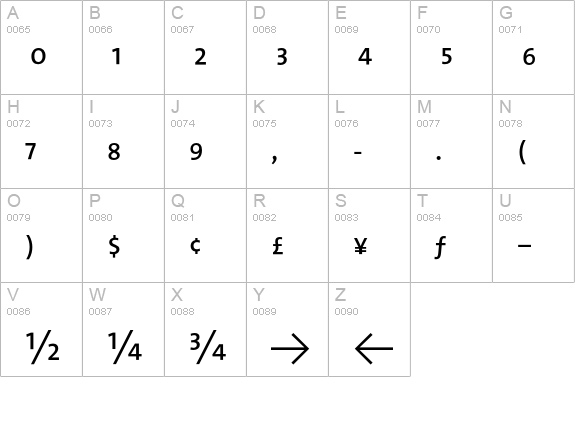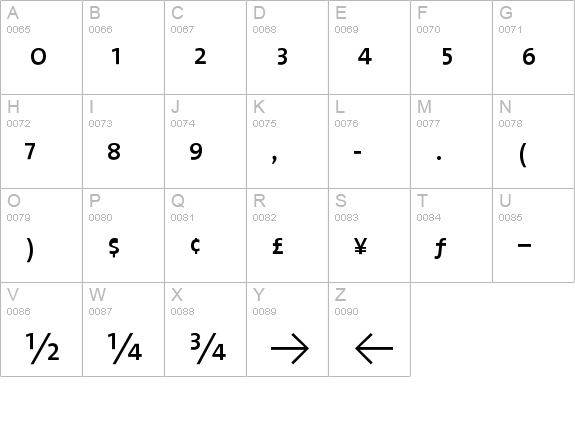
TheSans SemiLight Expert Font Details
TheSans SemiLight Expert font is a versatile and elegant typeface that effortlessly combines modern simplicity with timeless sophistication. Its semi-light weight creates a delicate and refined aesthetic, making it perfect for a wide range of design projects. This font offers a harmonious balance between legibility and visual appeal, making it ideal for both display purposes and body text. Its clean and well-proportioned letterforms ensure excellent readability across various sizes and resolutions. What sets TheSans SemiLight Expert font apart is its extensive character set, which includes a wide range of expert features. These features provide enhanced typographic versatility, allowing designers to create professional and polished designs with ease. And the best part? TheSans SemiLight Expert font is available for free download at FontsMarket.com. It is an excellent opportunity to add this exceptional typeface to your font library without any cost. With its seamless integration into your design software, you can start exploring and experimenting with its versatile features right away. Whether you are working on branding materials, editorial layouts, web design, or any other creative project, TheSans SemiLight Expert font will elevate your work to new heights. Its clean, elegant, and modern aesthetic will captivate your audience, leaving a lasting impression. Embrace the versatility and beauty of TheSans SemiLight Expert font today by downloading it for free at FontsMarket.com. Expand your creative possibilities and create stunning designs that truly stand out from the crowd.